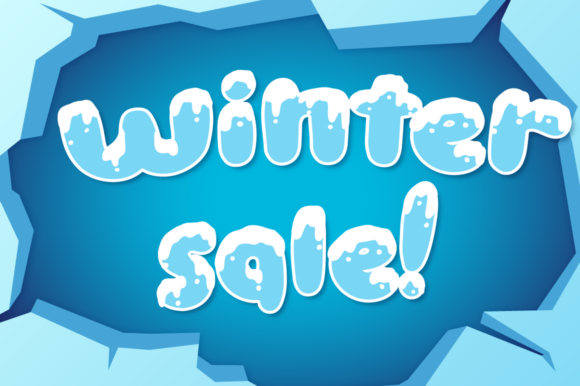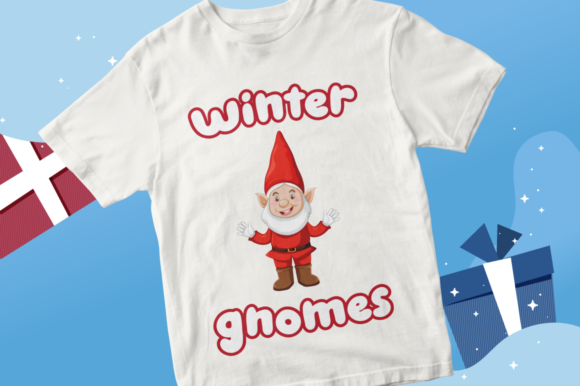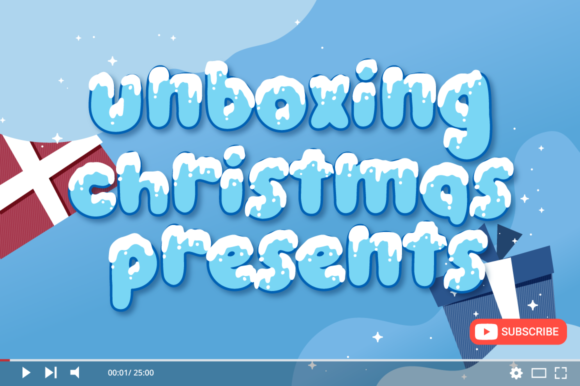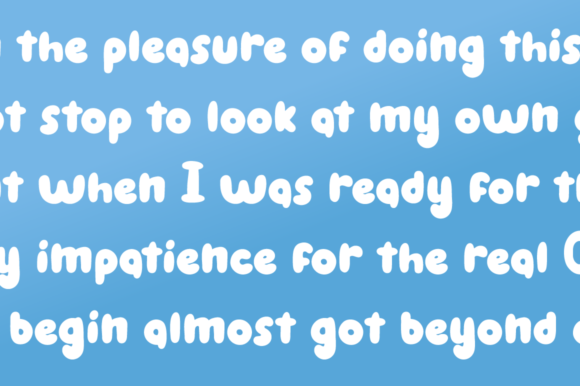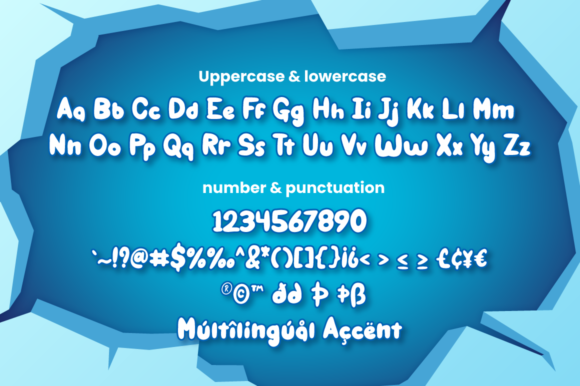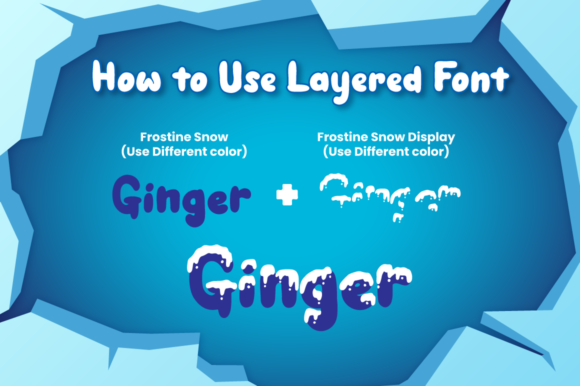
Winter Wonderland Typography: Unveiling the Magic of Frostine Snow Font
It’s the middle of winter, and you’re brainstorming ideas for your next design project. You’re surrounded by twinkling lights, steaming hot chocolate, and the soft sound of snowfall outside. As you scroll through your font library, you come across a charming, thick-lettered display font that instantly sparks your creativity – the Frostine Snow Font. This adorable font is specifically designed for winter-themed projects and snow-related designs, making it the perfect companion for your cold-weather creations.
The Frostine Snow Font is more than just a cute face; it’s a valuable tool for designers who want to add a touch of winter wonderland magic to their projects. With its unique, chunky letters, it’s ideal for headlines, titles, and other display text that needs to stand out. Whether you’re designing a festive holiday card, a winter-themed logo, or a snowflake-inspired illustration, the Frostine Snow Font is sure to bring a smile to your face and a touch of whimsy to your designs.
Frostine Snow Font Key Features
- Unique Characteristics: Distinctive, hand-drawn feel with intricate details and texture, evoking a sense of winter wonder
- Font Style: Comes in regular and bold weights, allowing for a range of design possibilities
Frostine Snow Font Review
I recently had the chance to work with the Frostine Snow Font, and overall, I was quite impressed. Here are my thoughts on what works well and what doesn’t.
- Unique winter-inspired design: The Frostine Snow Font is a great choice for any winter-themed project, from holiday cards to snowboarding websites.
- Customizable: The font can be easily customized to fit your project’s needs, with a range of font styles and sizes available.
- Limited language support: Unfortunately, the Frostine Snow Font only supports a limited number of languages, which might be a problem for projects that require a broader language range.
- Not suitable for small text: Due to its decorative nature, the Frostine Snow Font is not ideal for small text sizes, where it may become difficult to read.
Overall, I think the Frostine Snow Font is a great addition to any designer’s toolkit. While it has some limitations, its unique design and high-resolution graphics make it a great choice for winter-themed projects. With a little creativity and customization, it can add a touch of magic to any design.
Tips for Getting the Most Out of Frostine Snow Font
To get the most out of Frostine Snow Font, use it in conjunction with bold or italic text to create a sense of contrast and emphasis. You can also use it in combination with other winter-themed graphics and elements to create a cohesive design.
Common Use Cases for Frostine Snow Font
Frostine Snow Font is commonly used in winter-themed designs, such as holiday cards, invitations, and advertisements. It’s also used in branding and logos for companies that operate in the winter sports or hospitality industries.